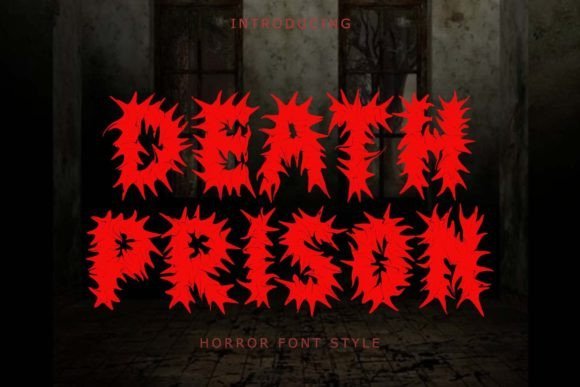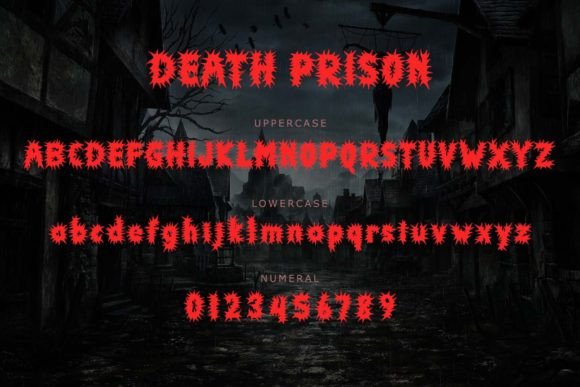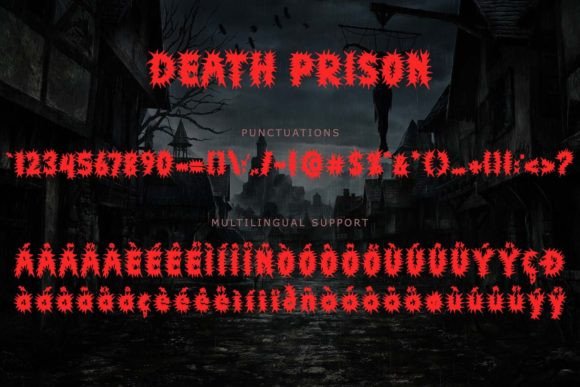
The Birth of a Dark Masterpiece: Death Prison Font
As a designer, there’s nothing quite like that moment of creative spark – the flash of inspiration that sets your imagination ablaze and propels you towards a new project. For me, it was while browsing through a collection of eerie fonts that I stumbled upon the “Death Prison Font”, a hauntingly beautiful typeface that seemed to whisper tales of the macabre. Its thorny letters seemed to reach out and grab me, refusing to let go until I’d brought its dark beauty to life.
Developed with a unique horror theme, the Death Prison Font is more than just a font – it’s a tool for designers who dare to push the boundaries of creativity. With its comprehensive set of uppercase and lowercase letters, numerals, and punctuations, this font is perfect for conjuring up spooky film titles, metal concert posters, or even book covers that will leave readers shivering with fear.
Death Prison Font Key Features
- Unique Characteristics: The Death Prison Font features a distressed, vintage aesthetic with a focus on bold, edgy lines and rough textures, giving it a unique and dramatic appearance.
Death Prison Font Review
When I first laid eyes on the Death Prison Font, I knew it was something special. The unique blend of gothic and distressed elements had me hooked. ✨ The font’s rough, prison-like texture adds a level of grit and realism that’s perfect for projects that need a touch of edginess.
One of the standout features of Death Prison Font is its versatility. ✨ It can be used for a wide range of applications, from titles and headings to body text and even logos. The font’s bold lines and sharp edges make it perfect for creating a sense of tension and urgency.
While Death Prison Font excels in many areas, there are some limitations to consider. ⚠️ The font’s distressed texture can sometimes make it difficult to read, especially at smaller sizes. Additionally, the font’s bold lines can be overwhelming if used excessively.
Another limitation is the font’s limited character set. ⚠️ While it includes a wide range of letters and punctuation marks, it’s missing some of the more obscure characters that designers often need.
Overall, I’m really impressed with the Death Prison Font. While it may have some limitations, its unique blend of style and versatility make it a valuable addition to any designer’s toolkit.
- Unique blend of gothic and distressed elements
- Perfect for creating a sense of tension and urgency
- Wide range of applications, from titles and headings to body text and logos
- Limited character set
- Distressed texture can make it difficult to read at smaller sizes
The Death Prison Font is ideal for designs related to crime, punishment, and the supernatural. Use it for:
- Crime scene investigations
- Prison-themed artwork
- Horror movie posters
- Distressed, worn-out textures